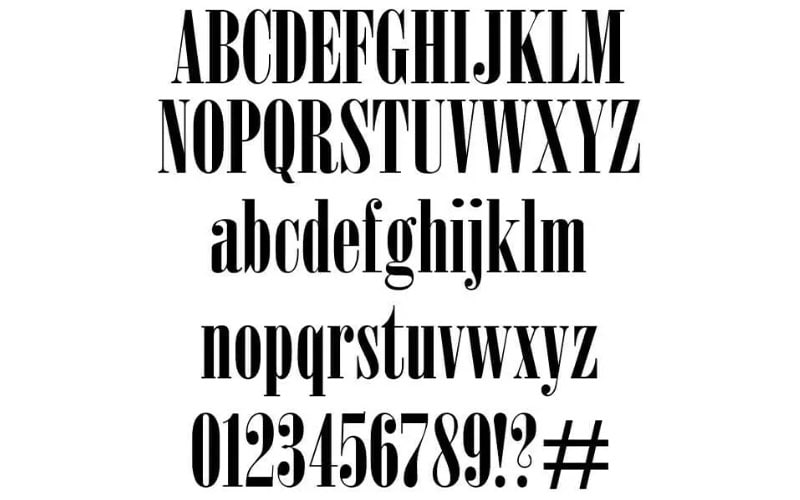
Distinctive Logo Typeface
Nirvana Rock Font is a distinctive typeface that has become synonymous with the grunge music movement of the 1990s. This typeface is inspired by the logo of the legendary rock band Nirvana.
Captures the raw, rebellious spirit of the era. It is a bold and impactful font, perfect for those looking to infuse their designs with a touch of rock ‘n’ roll attitude and vintage nostalgia.
Nirvana Rock Font is typically available in a single, bold style that emphasizes its strong, condensed letterforms. Its primary uses include Music and Entertainment Branding, Merchandise Design, and Event Promotions.
Great for projects that require a vintage or retro look, especially those targeting fans of rock music and 90s culture. Ideal for logos, album covers, and promotional materials for rock bands and music festivals.
Nirvana Rock Font
The font includes a basic set of characters, covering uppercase and lowercase letters, numerals, and punctuation marks, sufficient for most design needs.
The font is designed with tight kerning and spacing, reflecting the compact and impactful style of the original logo. Experience the bold impact and transform your creative projects into timeless tributes to the legendary grunge era!